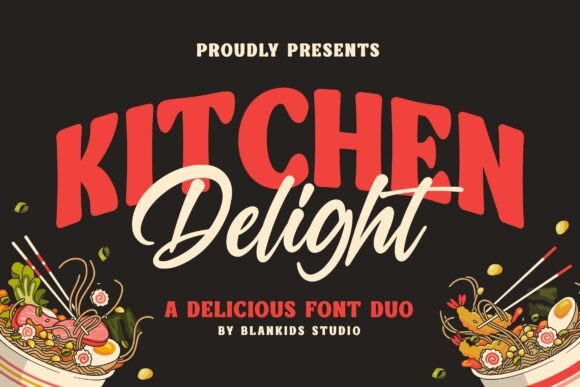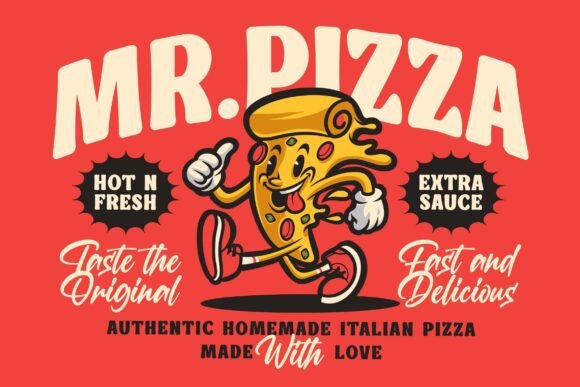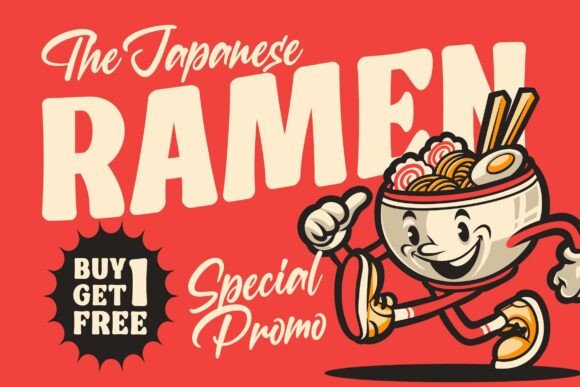
Kitchen Delight Font
About the Kitchen Delight Font
Crafted with precision, the Kitchen Delight Font is ready to bring your ideas to life. Kitchen Delight is a delicious font duo that is made for any professional project branding, such as logotype, watermarks, poster, branding, promotions, product packaging, etc.
Kitchen Delight’s playful, yet slightly retro style is ideal for headlines, short text blocks on packaging, and eye-catching posters. Its charming character also makes it suitable for branding projects related to food, home goods, or family-friendly businesses. However, its decorative nature makes it less than ideal for body text or UI elements where readability is paramount.
For optimal visual balance, pair Kitchen Delight with a clean sans-serif like Open Sans for body copy or a more modern geometric sans-serif like Montserrat for a contemporary feel. A subtle serif like Lora could also work well, providing a touch of classic elegance to offset its playful energy.
The font’s overall personality is friendly and approachable, yet retains a touch of sophistication, making it versatile for a range of projects requiring a balance of charm and professionalism.
Kitchen Delight Font Usage Examples
Kitchen Delight Font Example